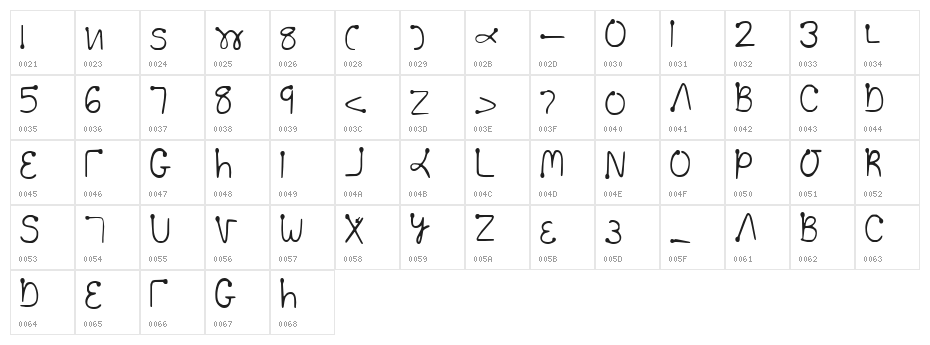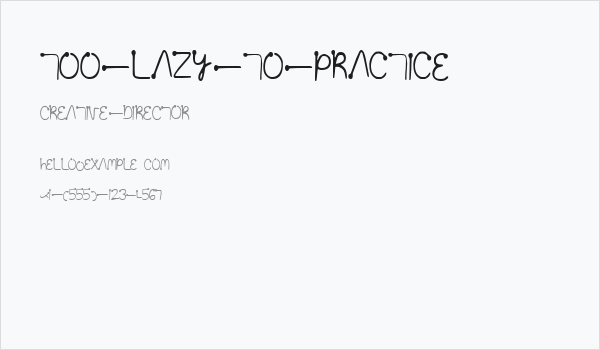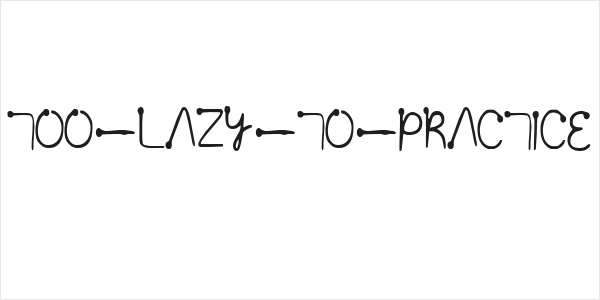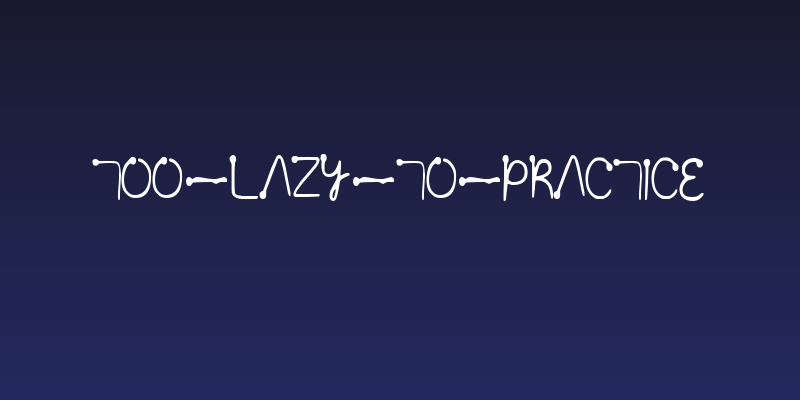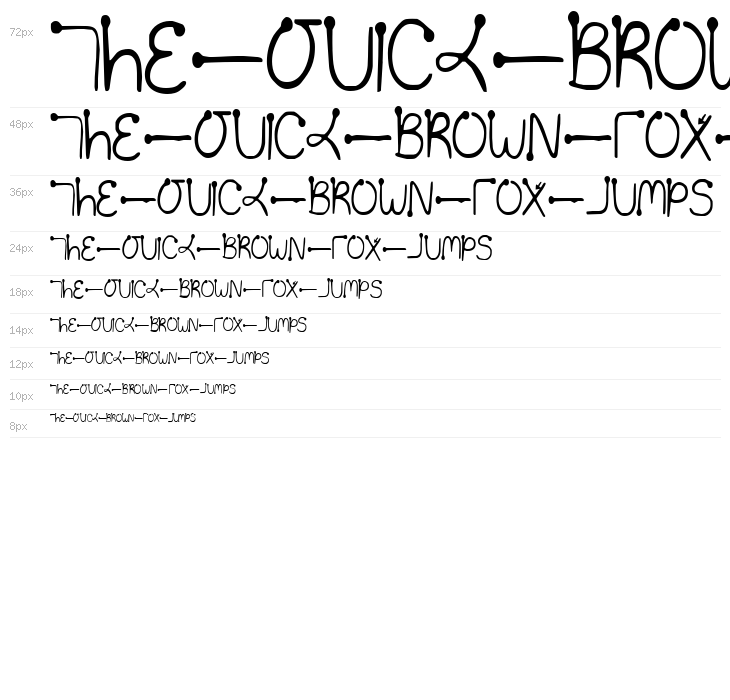
Too lazy to practice Font
Too lazy to practice Description
This font features a playful and whimsical design, characterized by its unique rounded terminals and thin connecting strokes. The letters have a hand-drawn, organic feel, with a consistent flow that adds a touch of creativity and fun. The uppercase and lowercase letters maintain a uniform style, while the numbers and special characters complement the overall aesthetic. The font's distinctive style makes it stand out, offering a fresh and modern twist on traditional typefaces.
| Overall Style | Playful, Modern |
| Proposed Projects | Ideal for children's books, creative posters, playful branding, and artistic invitations. |